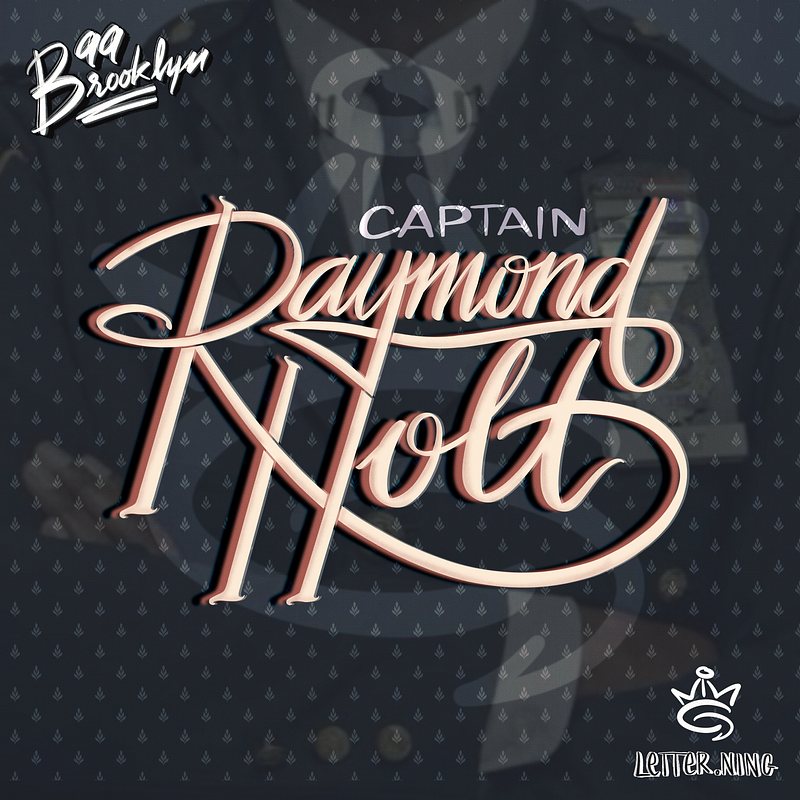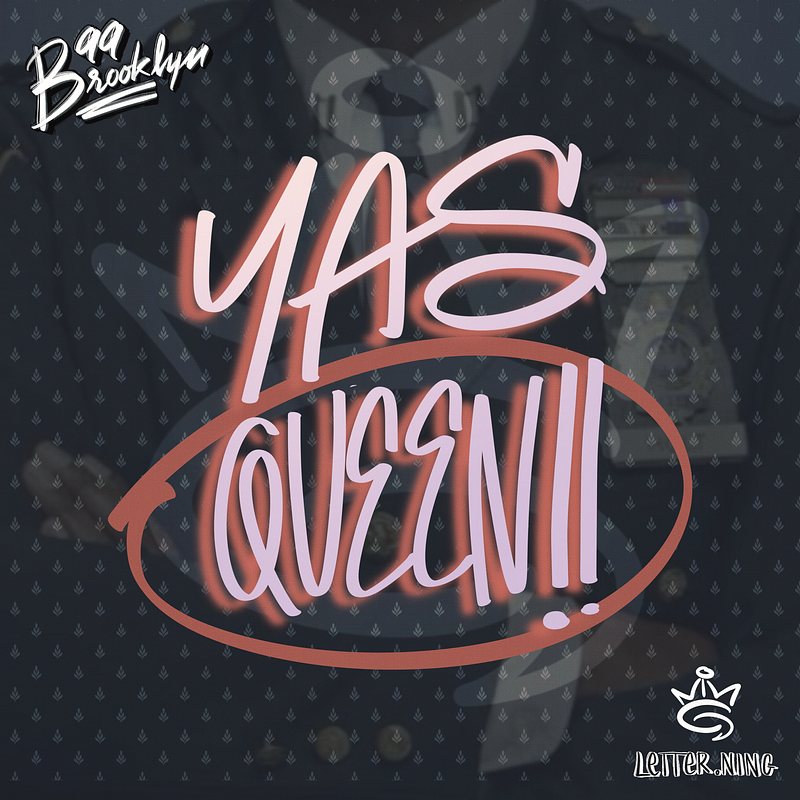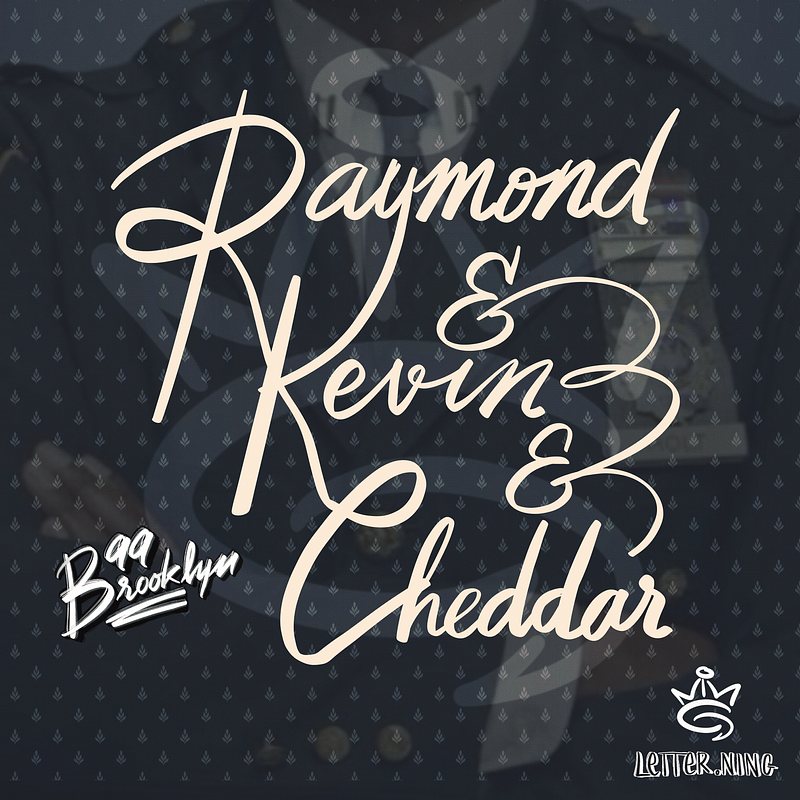
The Pride Month Lettering 00002-Captain Raymond Holt
Today's lettering is dedicated to one of my favorite characters, Captain Raymond Holt from Brooklyn Nine-Nine! I love how he may seem cold outside, but he is fun and playful with those close to him. What I admire most about him is his unwavering authenticity and how he has overcome discrimination in his workplace. I chose a script style for his name because I believe it suits him perfectly.
The Extras
I also had some fun playing around with the lettering. One features his iconic line, "Yas Queen!" while the other simply showcases his name and his love. I considered drawing Kevin's head on Cheddar's body like his tattoo, but that might be a bit too scary, LOL.